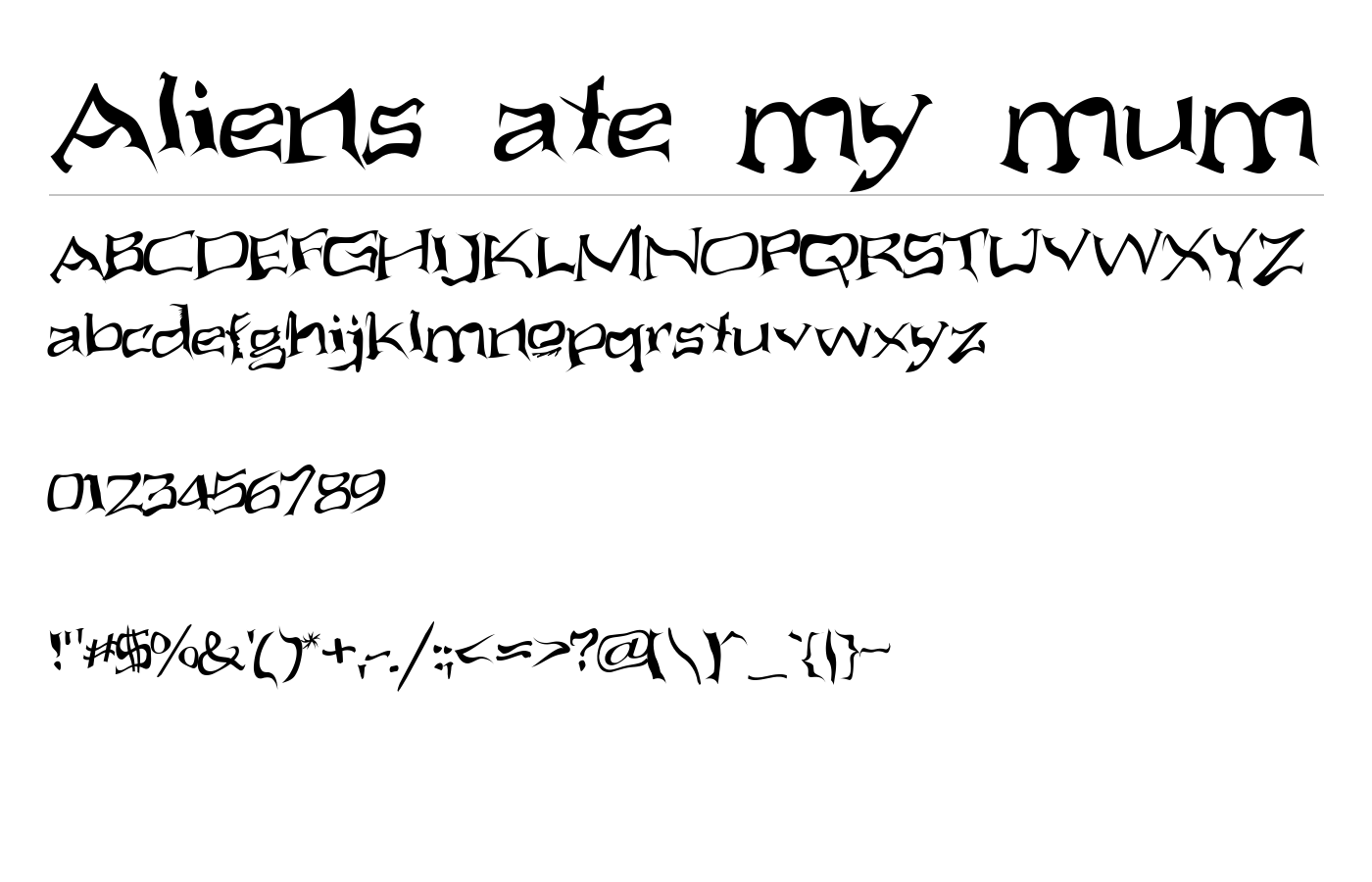
Aliens ate my mum is a quirky, handwritten-style display font that features sharp, irregular strokes and playful, spiky letterforms. Its unique, slightly distorted shapes create an eerie yet fun vibe, making it ideal for creative projects that need a bold, unconventional personality, such as Halloween themes, sci-fi titles, or playful posters. This font stands out with its energetic, experimental feel, adding character and edge wherever it’s used.
Aliens ate my mum Font
About Aliens ate my mum Font
| Font family | Aliens ate my mum Font |